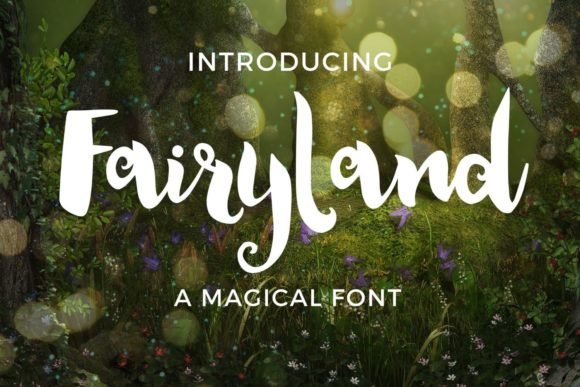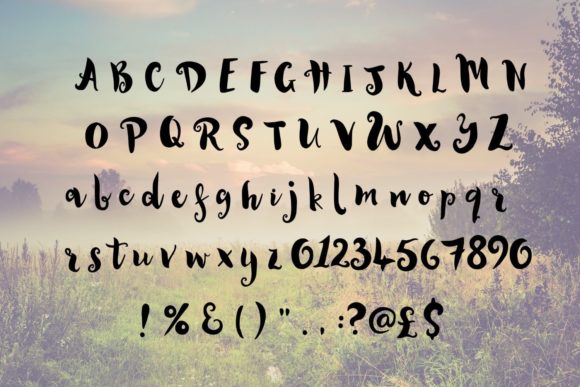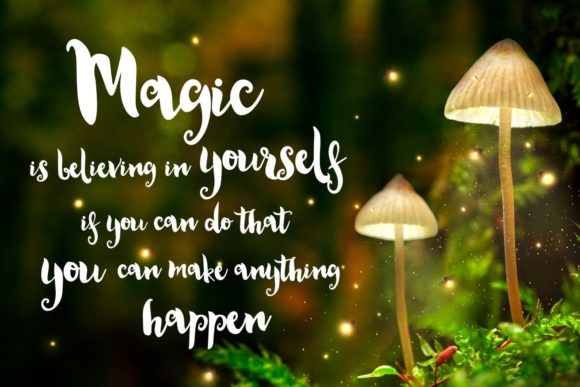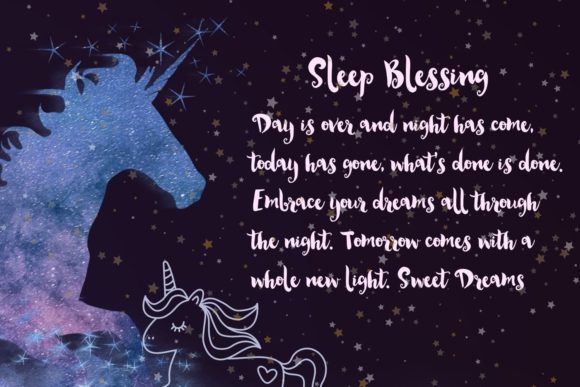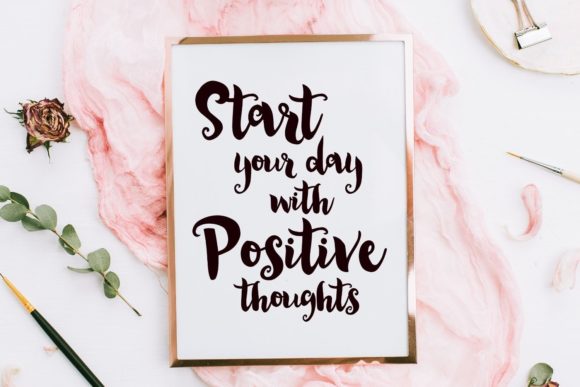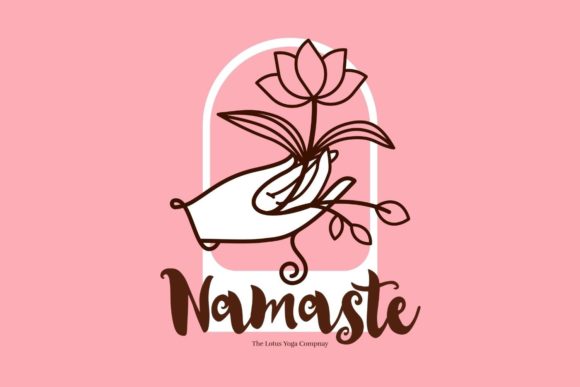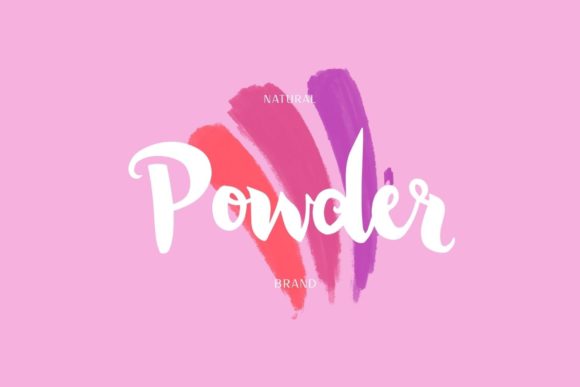
The Magic of Fairyland Font
Do you ever find yourself stuck in a creative rut, unable to put into words the whimsical ideas swirling in your head? For many of us, the blank page can be a daunting sight. But what if I told you that there’s a font that can transport you to a world of wonder and enchantment? A world where your words can dance across the page, bringing your imagination to life.
Meet Fairyland Font, a lovely script font designed to add a touch of magic to your most creative projects. With its charming, playful characters, Fairyland Font is the perfect companion for designers looking to add a unique twist to their work. Whether you’re crafting a children’s book, designing a wedding invitation, or creating a logo for a fantasy-themed brand, Fairyland Font is the key to unlocking your full creative potential.
- Unique Characteristics: Features a whimsical, dreamlike quality with intricate details and ornate flourishes, making it ideal for fantasy, fairy tale, and children’s book designs.
Fairyland Font Review
Fairyland Font is a charming, whimsical script font that’s sure to add a touch of magic to any design project. ✨ Here are some things that really work well:
- Unique, hand-drawn feel that’s perfect for adding a personal touch to designs
- Extensive character set, including international characters and punctuation
- Excellent for use in logos, invitations, and other design elements where a touch of elegance is needed
However, as with any font, there are some limitations to be aware of: ⚠️
- May not be the best choice for body text due to its ornate and elaborate nature
- Can be difficult to read at small font sizes, especially for longer blocks of text
- May require some additional styling to achieve the desired effect, such as adjusting line height or letter spacing
Overall, I think Fairyland Font is a beautiful and unique addition to any designer’s toolkit. While it may not be suitable for every project, it’s sure to add a touch of magic to the right design. With some careful planning and styling, you can achieve amazing results with this font.
Getting the Most Out of Fairyland Font
For optimal results, use Fairyland Font in conjunction with whimsical illustrations and pastel color schemes. Experiment with different font sizes and styles to create a unique and eye-catching design.
Fairyland Font is ideal for:
Children’s book covers and illustrations
Magazine and newspaper headlines
Baby shower and nursery decor
Alternatives to Fairyland Font
Great Vibes is a beautiful, handwritten script font that can be used for titles, headings, and other decorative elements. It has a whimsical feel to it, making it perfect for creative projects, children’s books, and invitations. Great Vibes is similar to Fairyland Font in its elegant and flowing style, but it has a more modern and sophisticated look.
Carolyna Pro is a high-end, elegant script font that is perfect for luxury brands, fashion, and high-end design projects. It has a classic feel to it, making it suitable for formal invitations, wedding designs, and luxury packaging. Carolyna Pro is similar to Fairyland Font in its luxurious and sophisticated style, but it has a more refined and polished look.
Pacifico is a beautiful, modern script font that is perfect for beach-inspired designs, summer projects, and outdoor-themed designs. It has a relaxed and casual feel to it, making it suitable for logos, headings, and body text. Pacifico is similar to Fairyland Font in its flowing and elegant style, but it has a more modern and laid-back look.